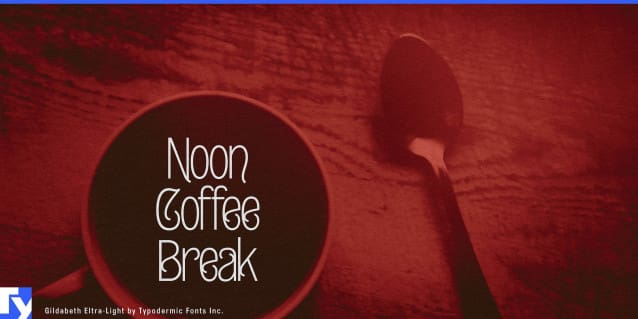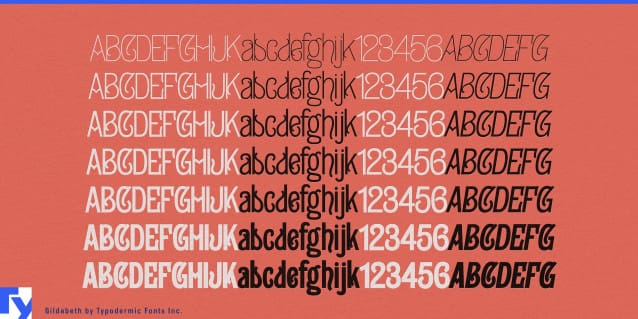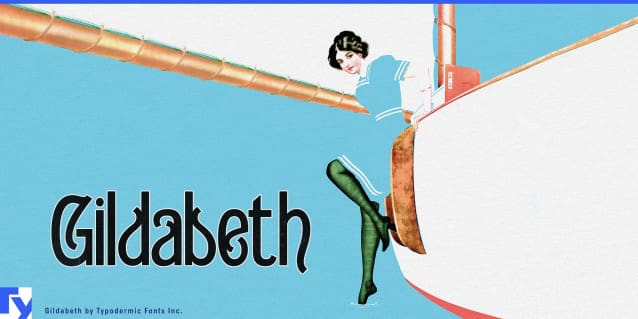
Gildabeth Font Family
Gildabeth Font Family, a typeface which offers a vintage flair, masterfully blended with gothic solidity, becoming an emblem of the Edwardian style.
Rooted in the elegance of an era marked by refinement, Gildabeth translates the splendor of the past into a sans-serif design fit for modern usage. Its narrow display character and rugged stroke modulation deliver a classic aesthetic that suits the digital age.
Available in six distinct weights, from Thin to Extra-Bold, each accompanied by precise obliques, Gildabeth ensures your designs carry a sense of the era of refinement, without compromising on contemporary versatility.
Gildabeth Font?a fusion of old-world charm and contemporary precision. Let your designs resonate with the genteel grace of the past while confidently addressing the needs of the present.